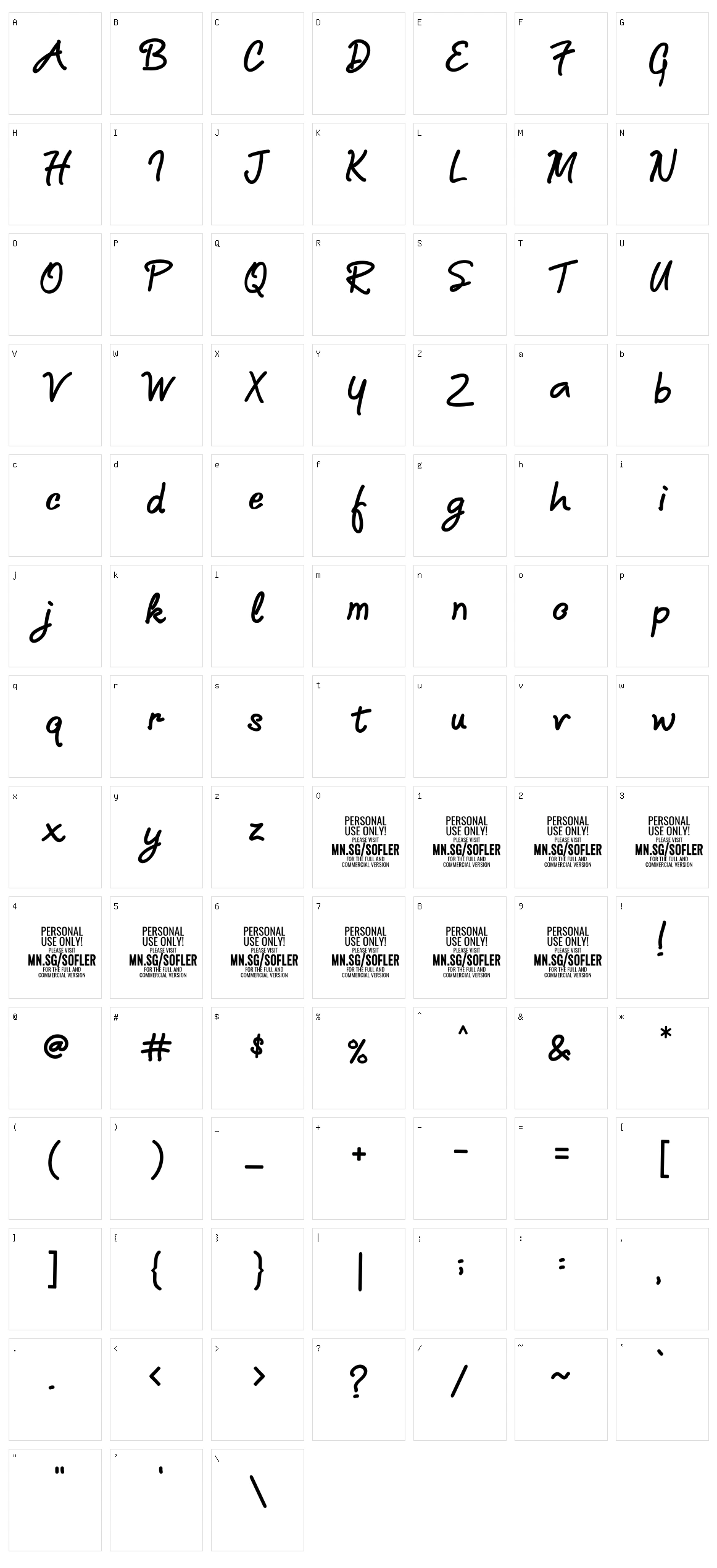
Sofler is a bold and quirky handwriting font that adds a touch of personality and individuality to your designs. Its unique and eye-catching style sets it apart from more traditional handwriting fonts, making it perfect for projects that require a touch of fun and quirkiness. This font is ideal for teenage or hipster-themed designs, or for any project that wants to capture a fun and lighthearted vibe. Whether you're creating social media posts, product packaging, or marketing materials, Sofler is the perfect font to help you stand out and make a lasting impression.
The Sofler family consists of four high-quality fonts:
Regular, Italic, Bold and Bold Italic
The font is built with advanced OpenType functionality and has a guaranteed top-notch quality, containing stylistic and contextual alternates, ligatures and more features; all to give you full control and customizability.
It has extensive lingual support, covering all Latin-based languages, from Northern Europe to South Africa, from America to South-East Asia.
It contains all characters and symbols you'll ever need, including all punctuation and numbers.